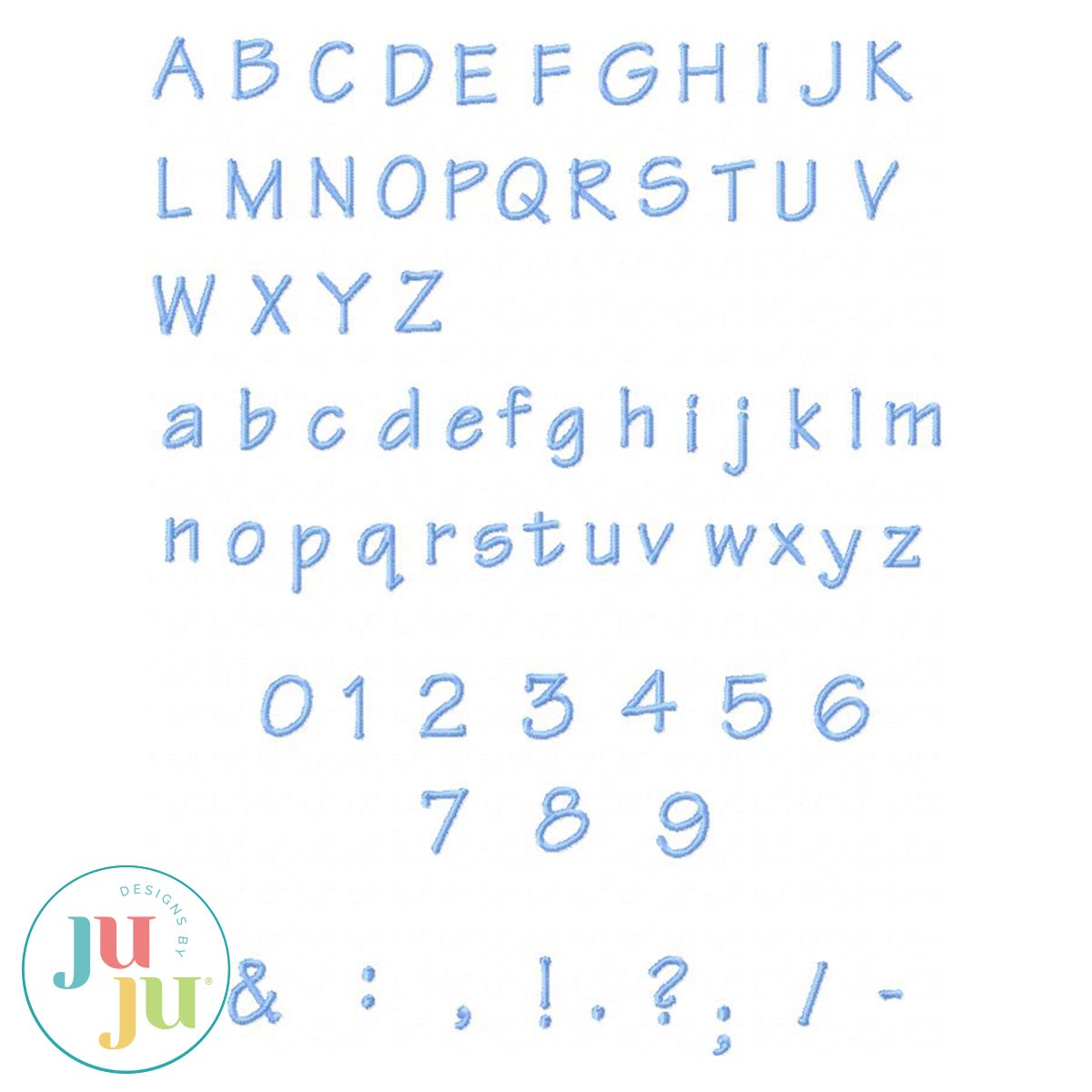
Architect Satin Stitch Embroidery Font by Oma's Place
This font includes both upper and lower case lettering as well as numbers 0-9 and common punctuation marks. Its perfect for name insertion into blanket labels, especially for boys. It stands approximately .5" tall and is a very readable, clean looking font.